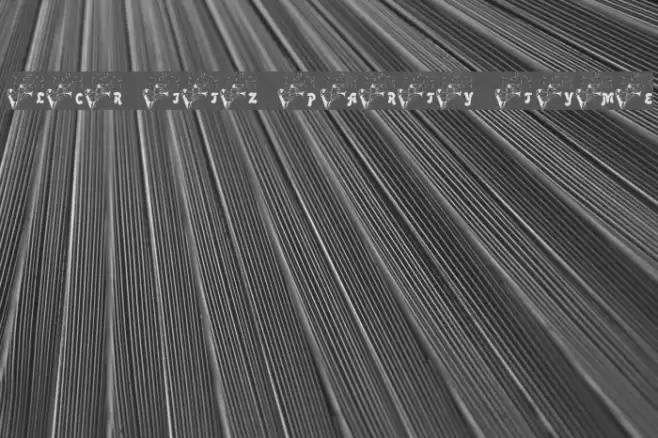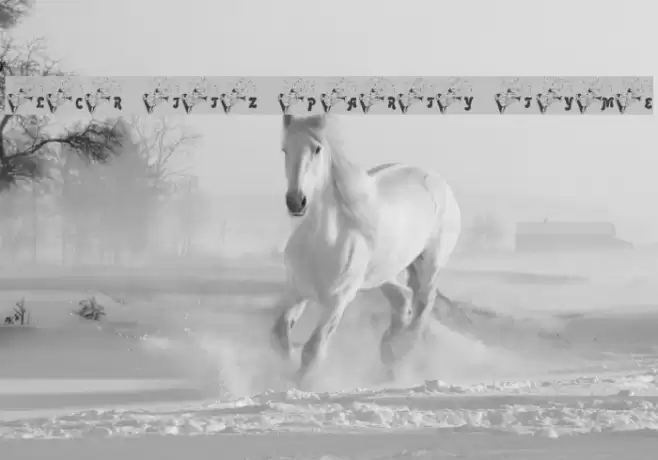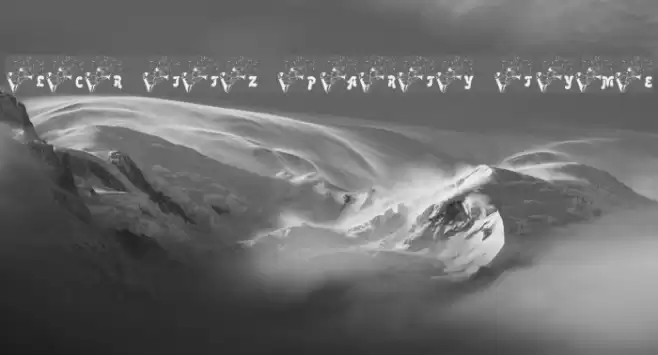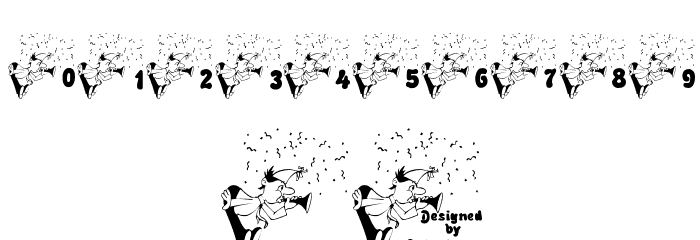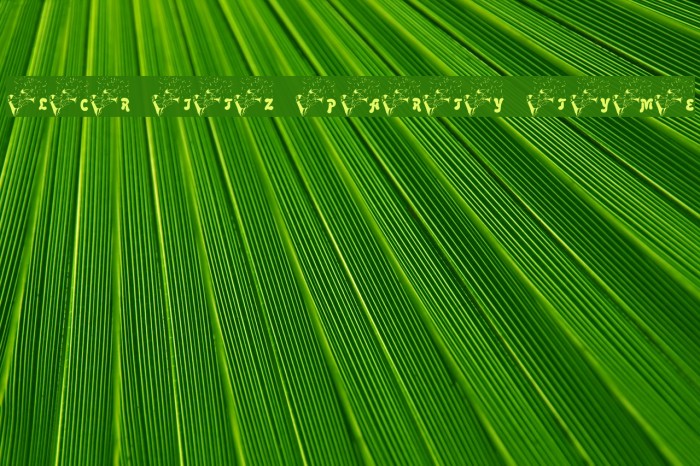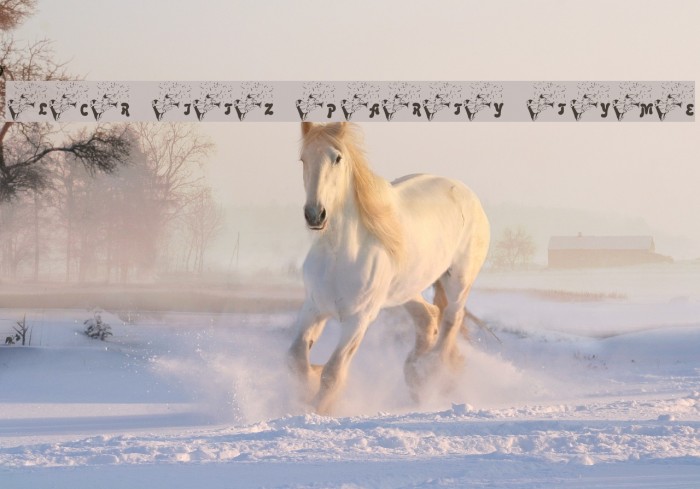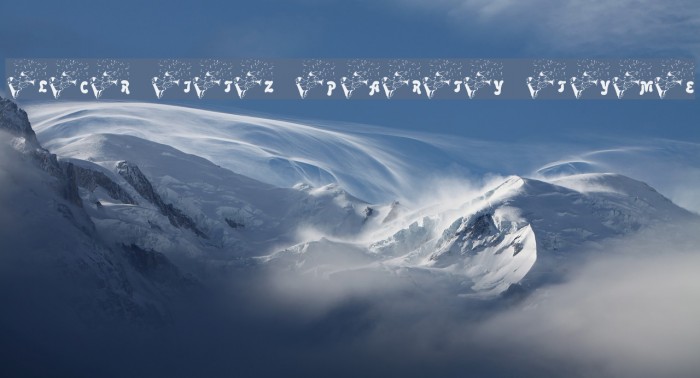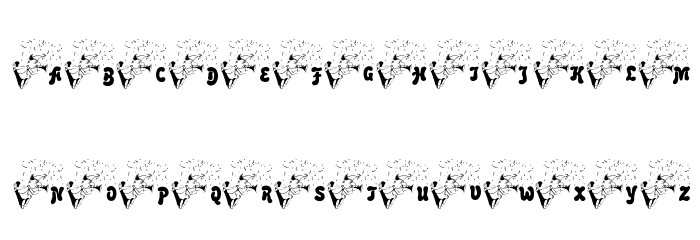
LCR Itz Party Tyme! Font
LCR Itz Party Tyme! Description
This decorative font features a playful and festive design, with each character adorned by a whimsical party-themed illustration. The letters are bold and slightly rounded, exuding a sense of fun and celebration. The unique style incorporates elements of confetti and party hats, making it ideal for festive occasions. The characters are well-defined, with a consistent style that maintains readability while adding a touch of excitement. This font is perfect for projects that aim to convey joy and liveliness, such as party invitations, event posters, or playful branding materials.
A playful, party-themed decorative font with bold, festive characters from Uncategorized fonts.
- Proposed Projects: Ideal for party invitations, event posters, playful branding, and festive decorations.